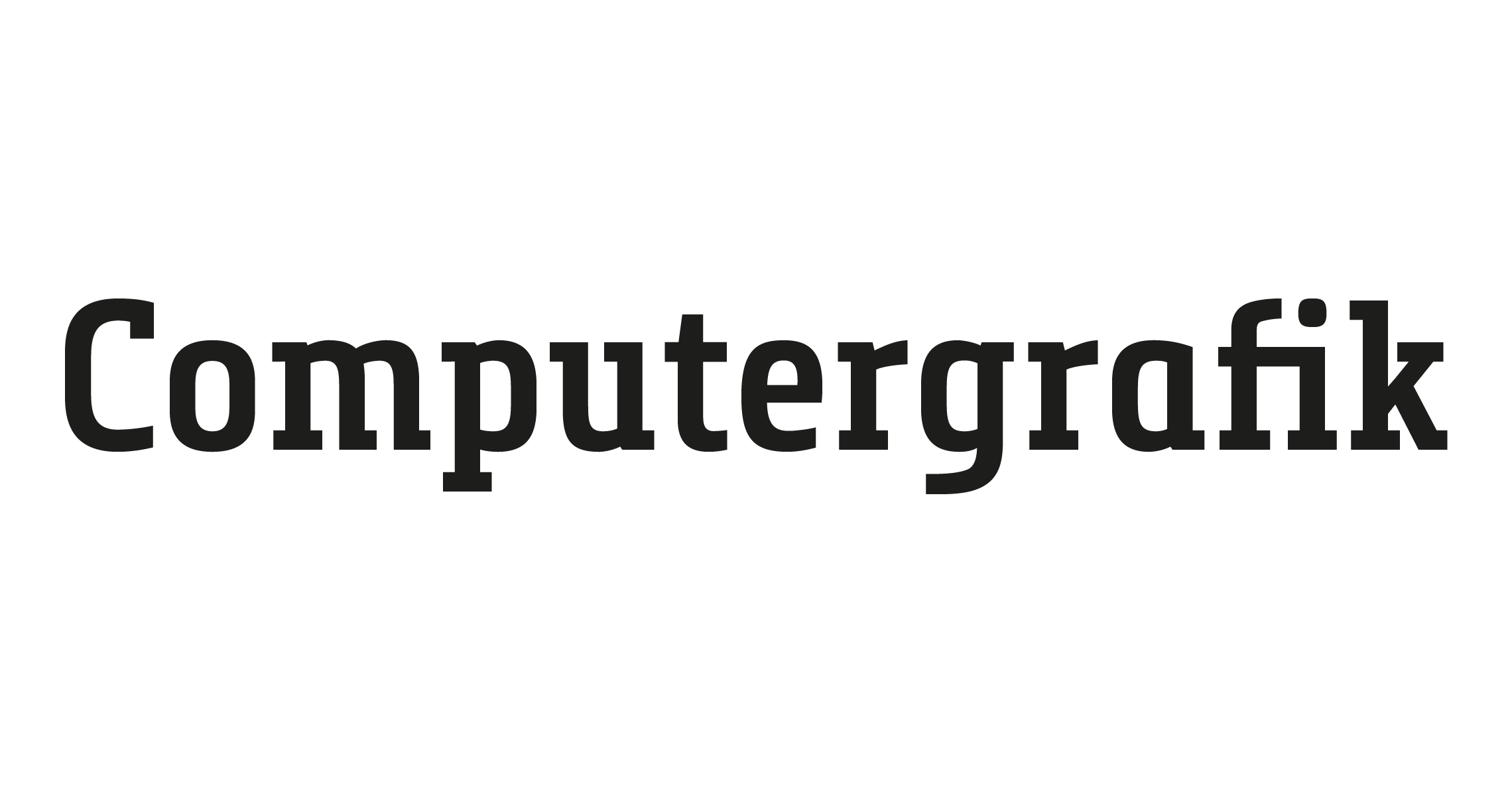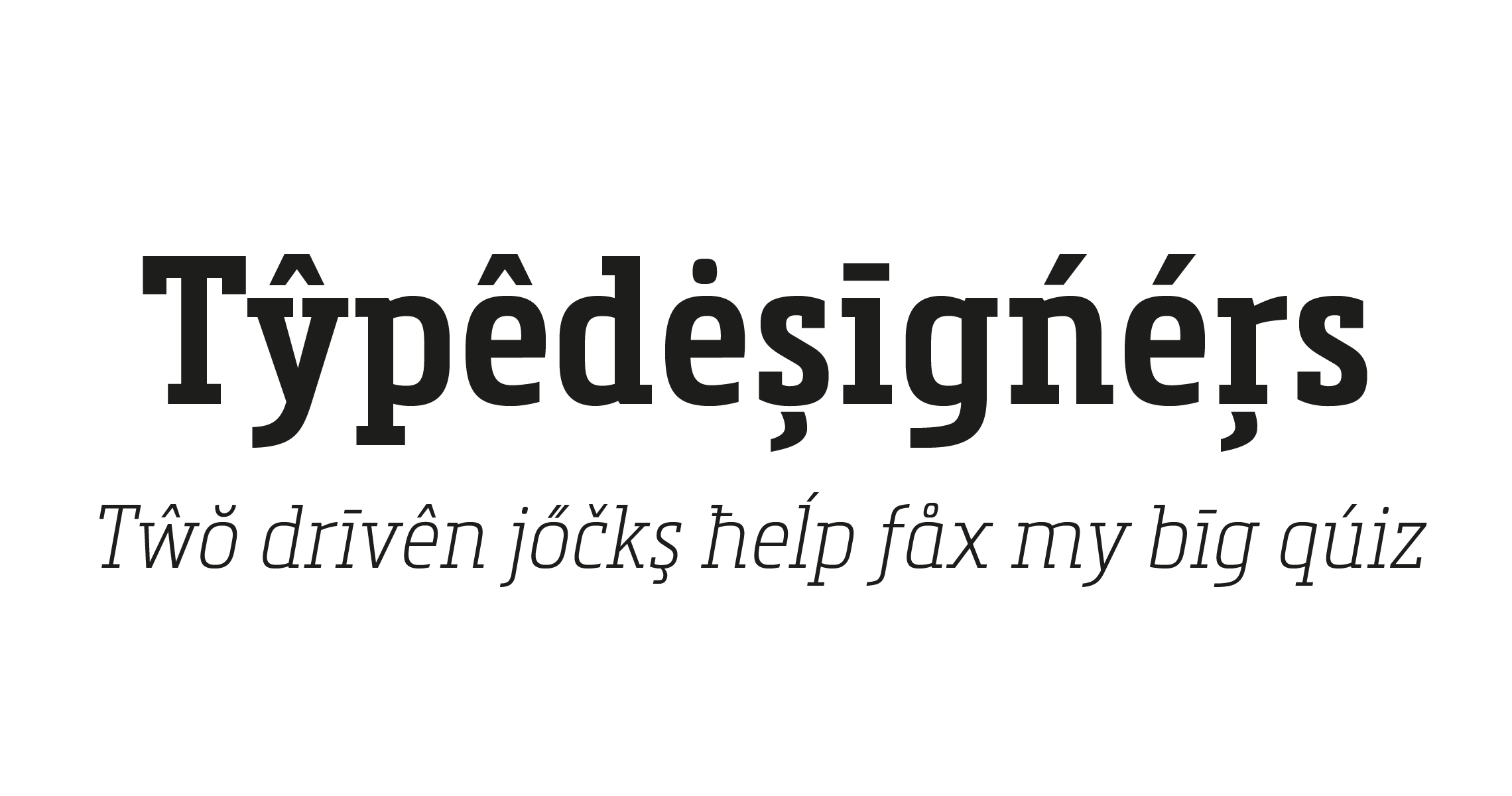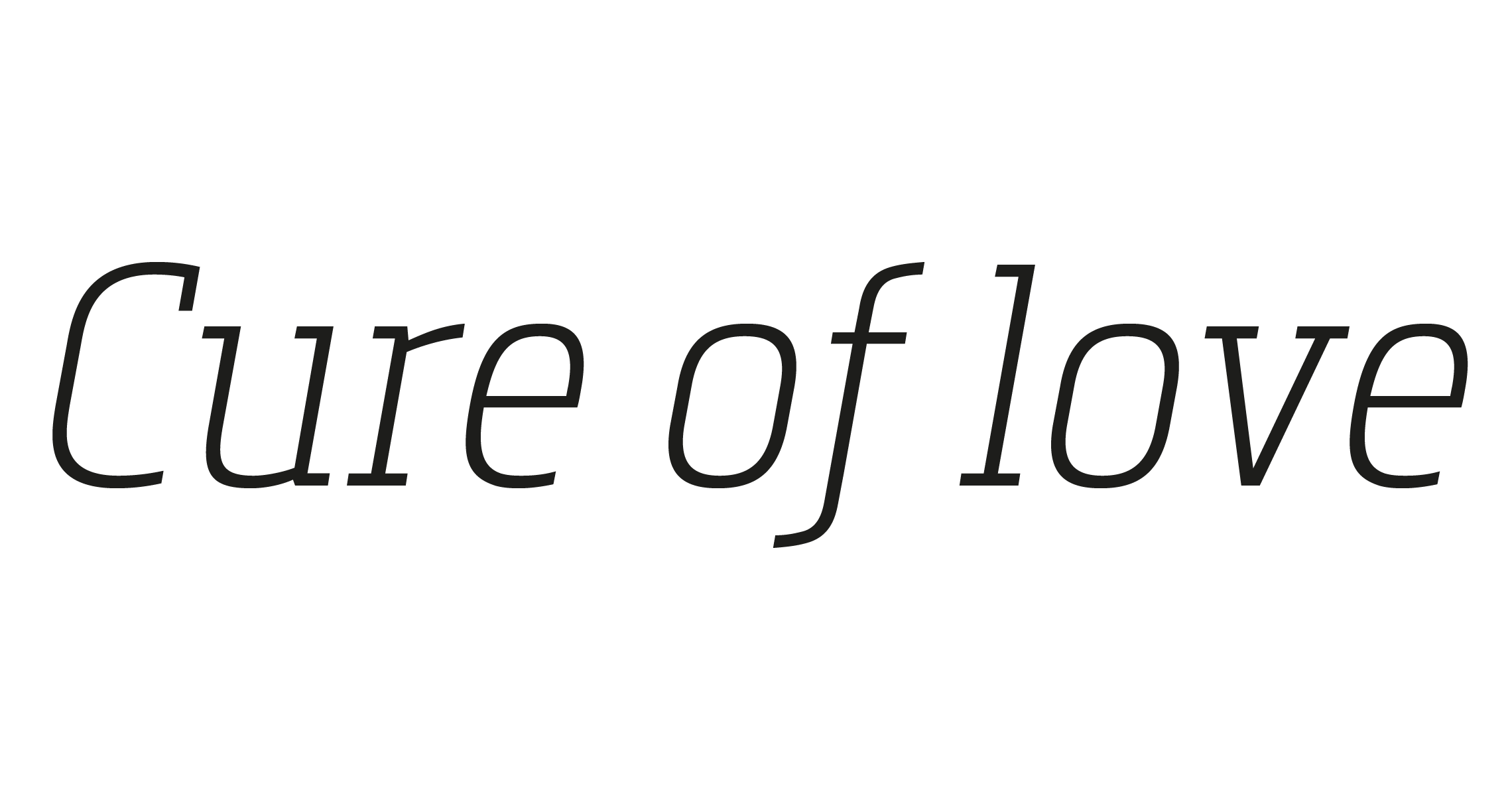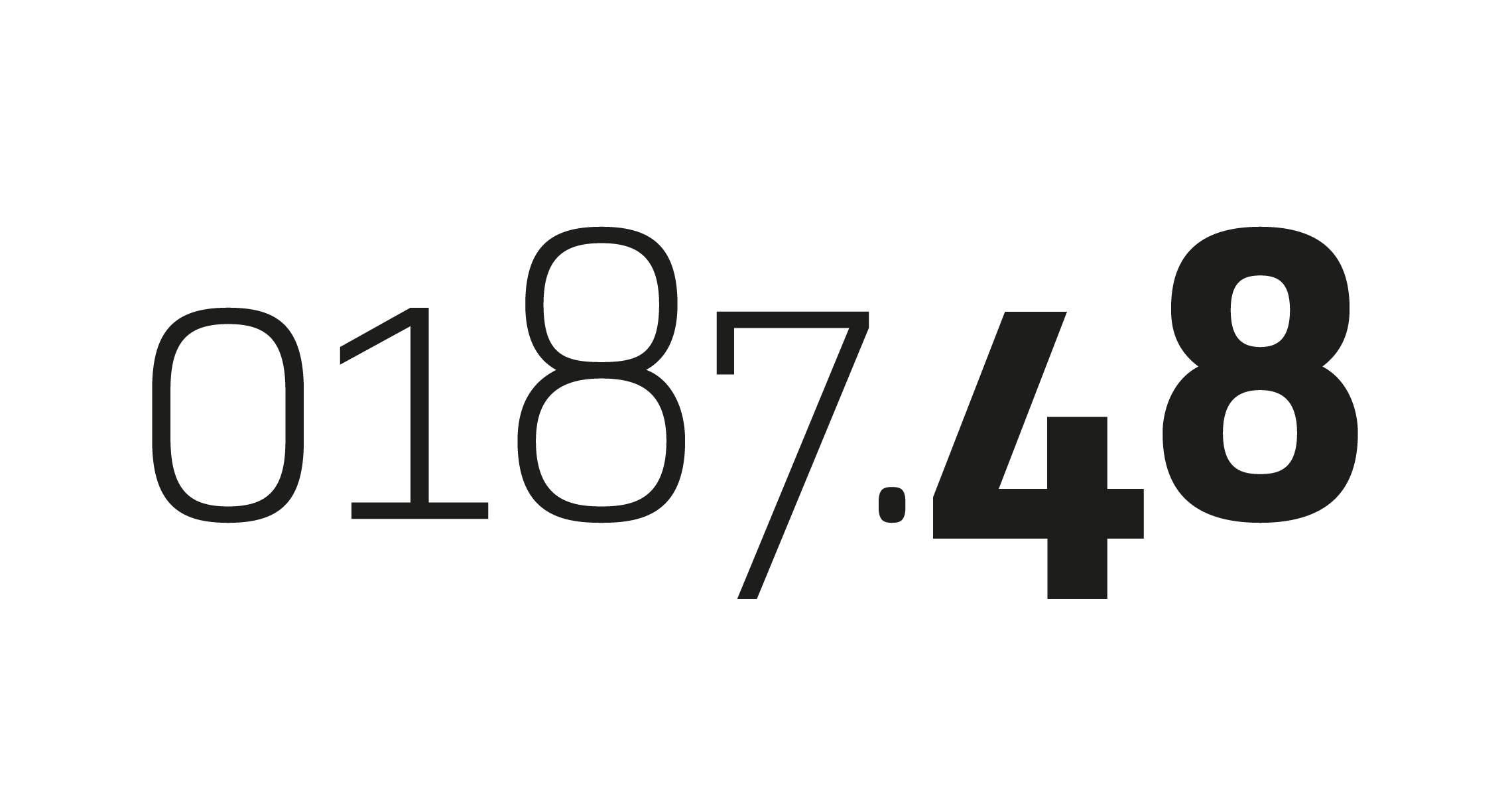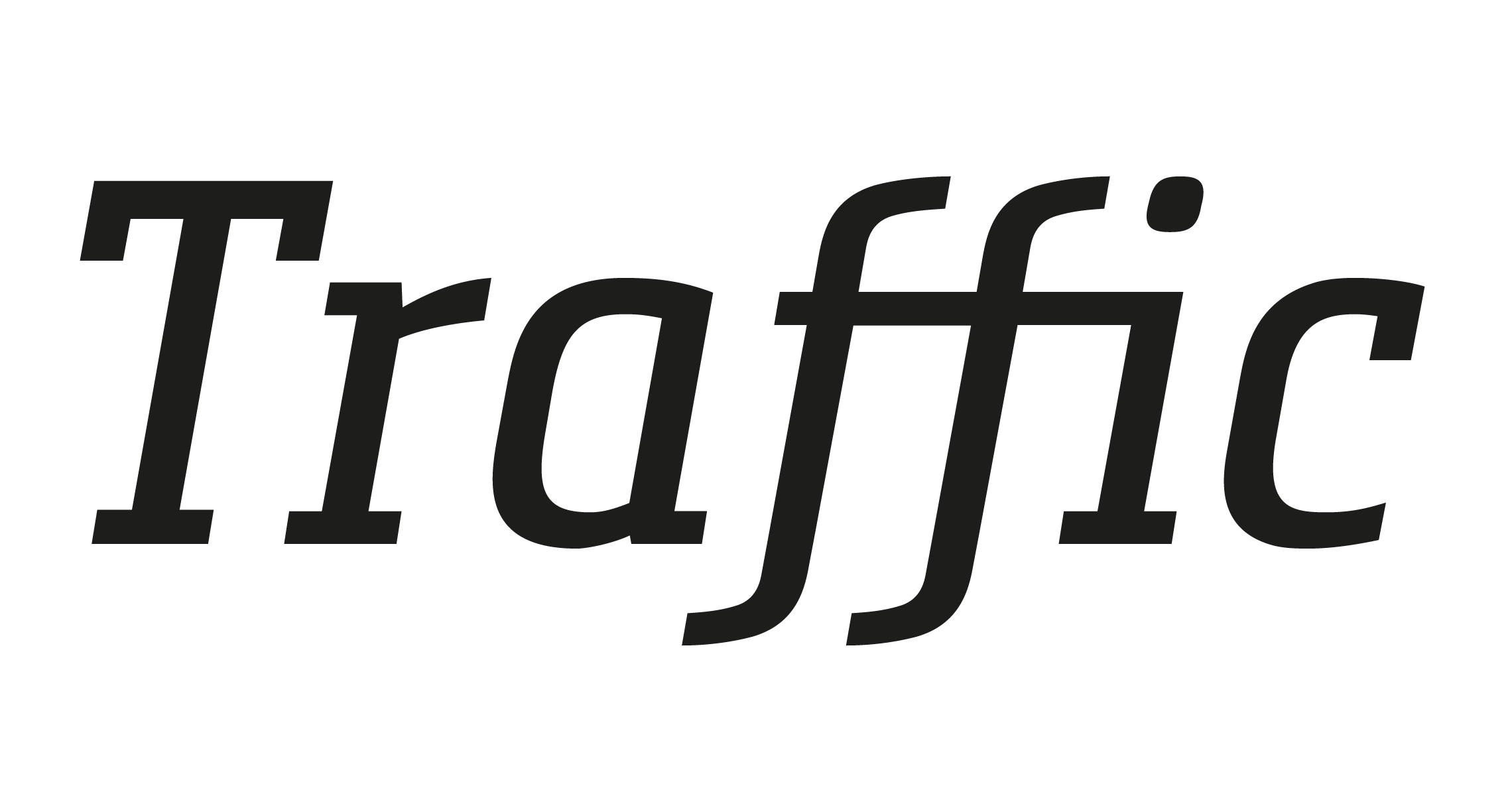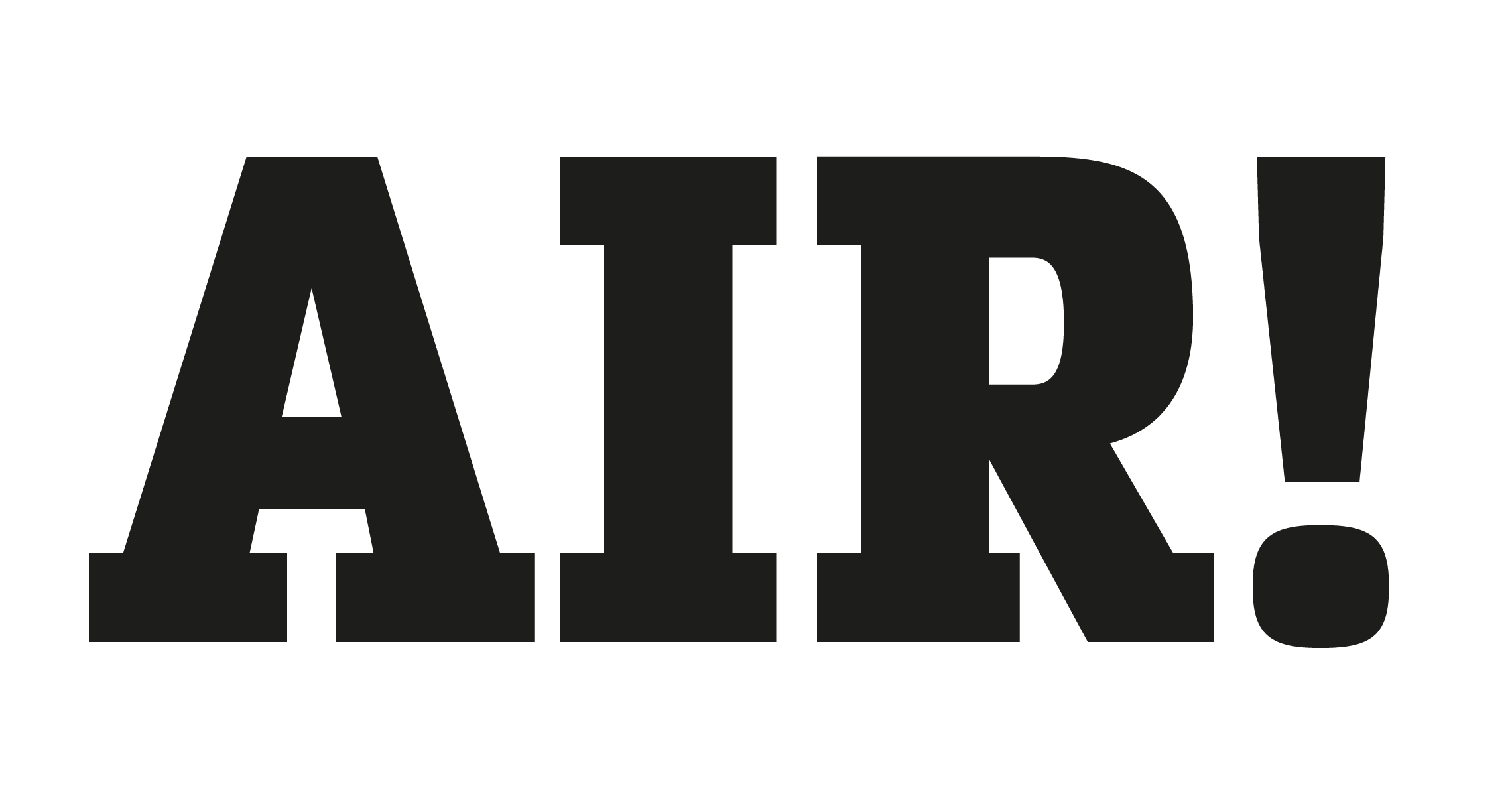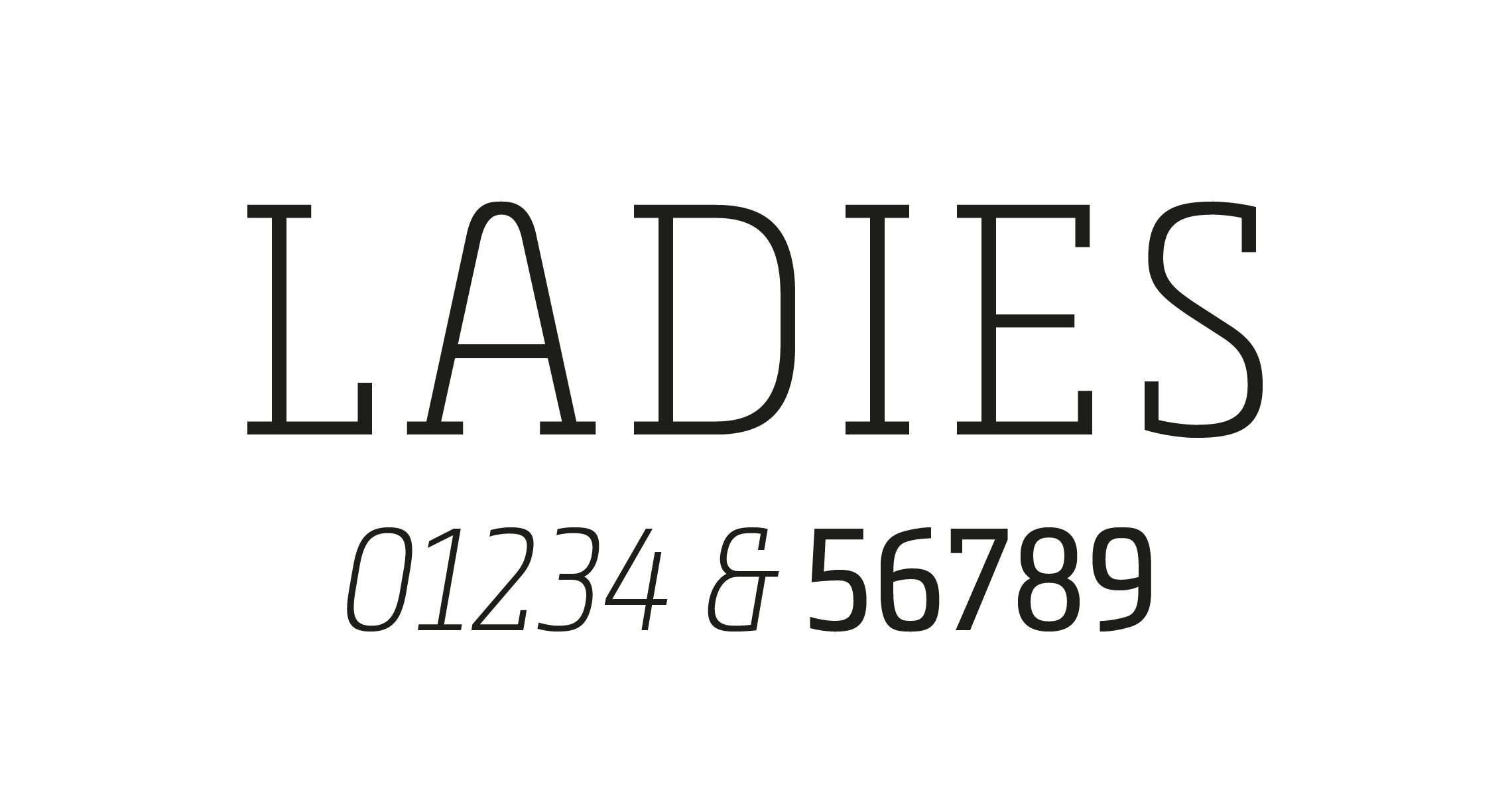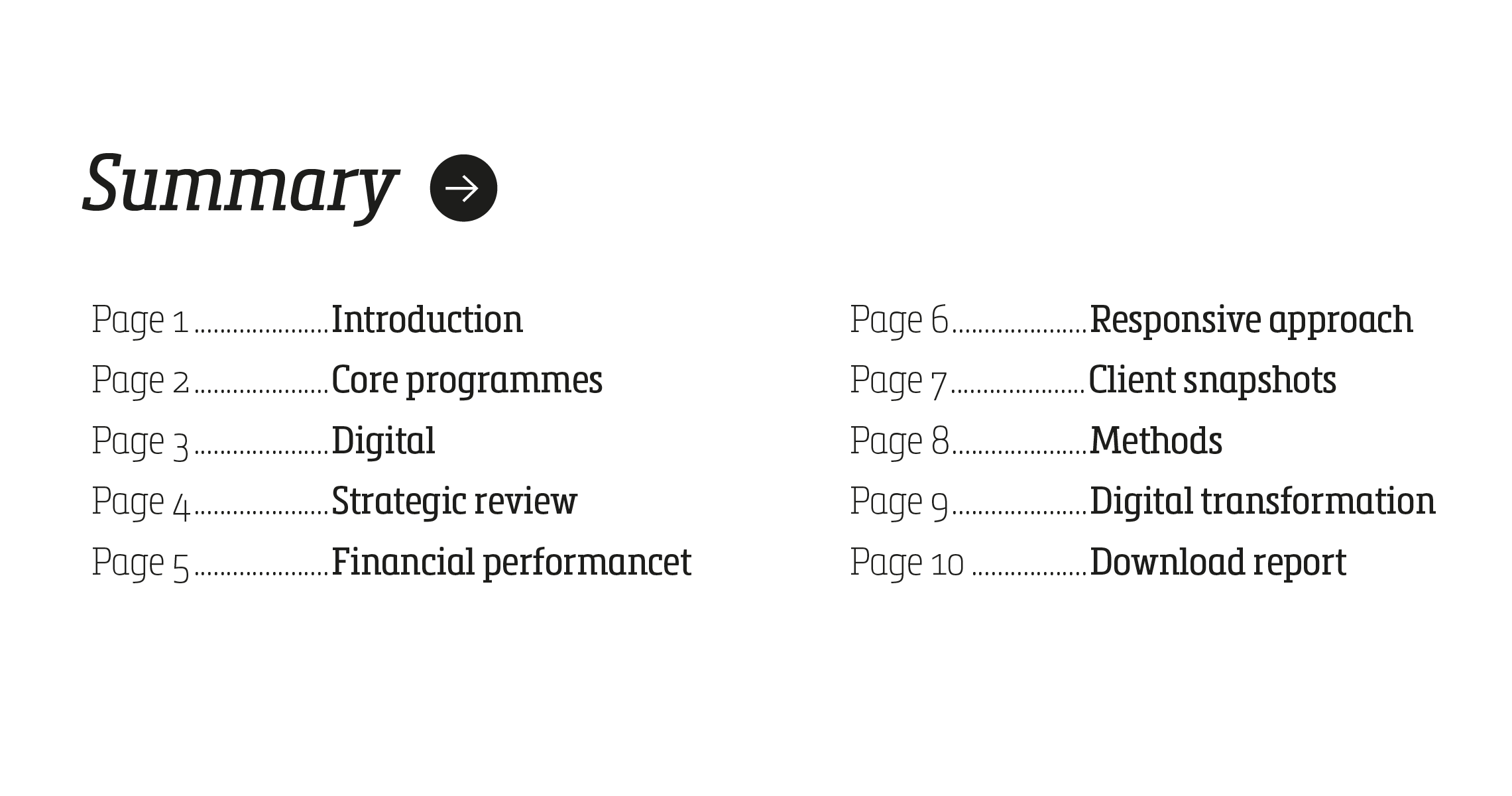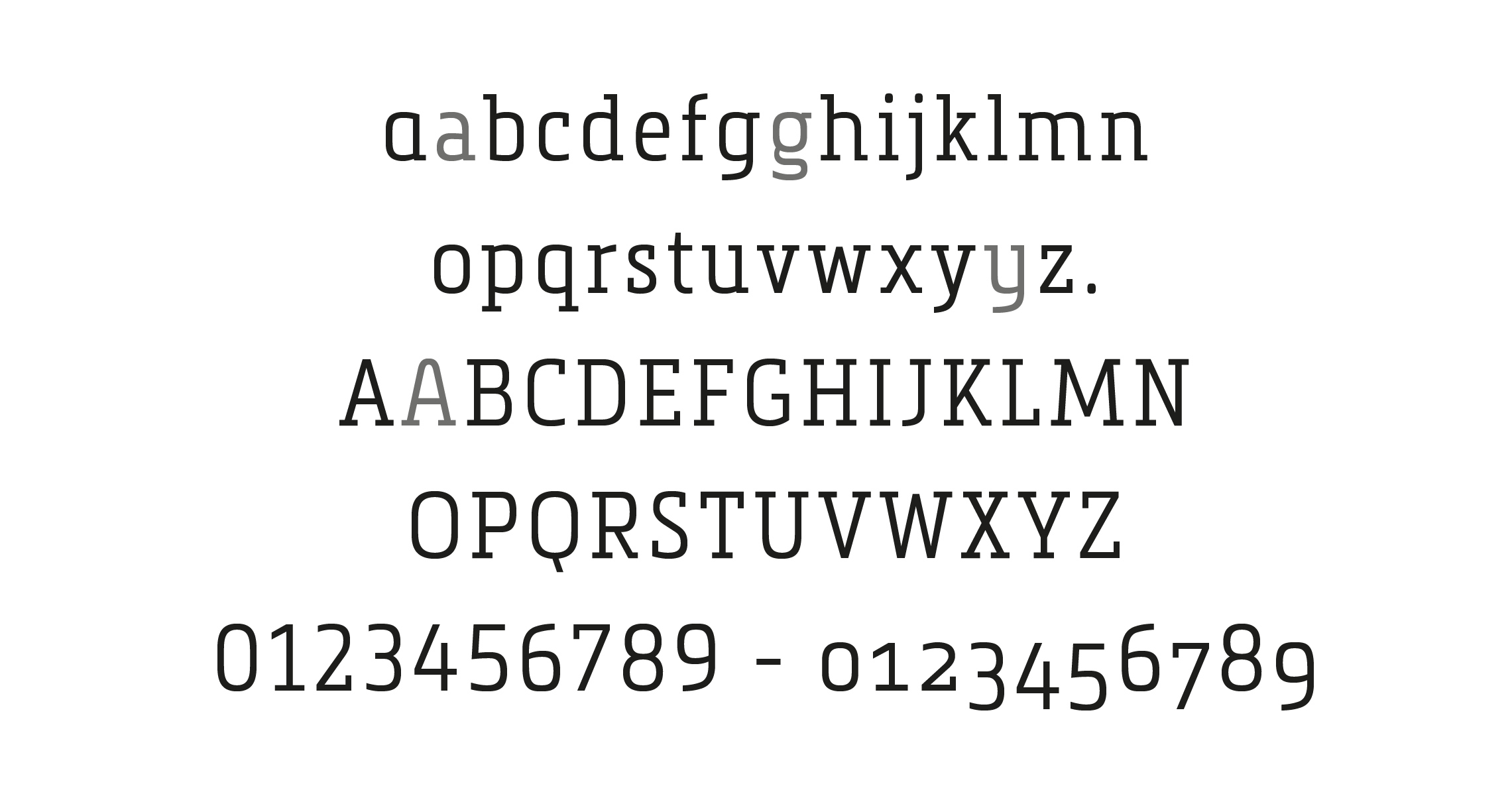
Metronic Slab Narrow
A slab serif font family for space saving typography
Metronic Slab Narrow is the condensed version of the Metronic Slab Pro font family. This typeface was completely drawn with the look and feel of the original normal-width version. Metronic Slab Narrow contains 12 styles from Air to Black (Air, Light, Regular, Semi Bold, Bold and Black) with an alternative glyph set to improve its use in different graphic contexts. This typeface will be suitable for many projects such as titles, subtitles, long editorials, brand building, mobile applications, ebooks, websites or company signage. Its modern and friendly aspect will also be suitable for editorial projects. Metronic Slab Narrow also has many powerful OpenType features such as case sensitivite forms, old style and tabular figures, ligatures, capital spacing, fractions and alternative characters to give personality to graphic design projects. Designed also for complex editorial content, this typeface has a powerful home kerning system called “Pro Kerning”. With more than 1500 pairs of glyphs in many languages, Pro Kerning optimizes headlines, subtitles, texts as well as long paragraphs in real time. In addition to all the features of its kind, Metronic Slab Narrow is part of a very complete “type system” with style variants such as the normal-width-version or the sans serif version. With all these typefaces, you have 48 styles to make your own vibrant and professional graphics or web creations while maintaining consistency in your creations.
Spacing and Kerning by Igino Marini